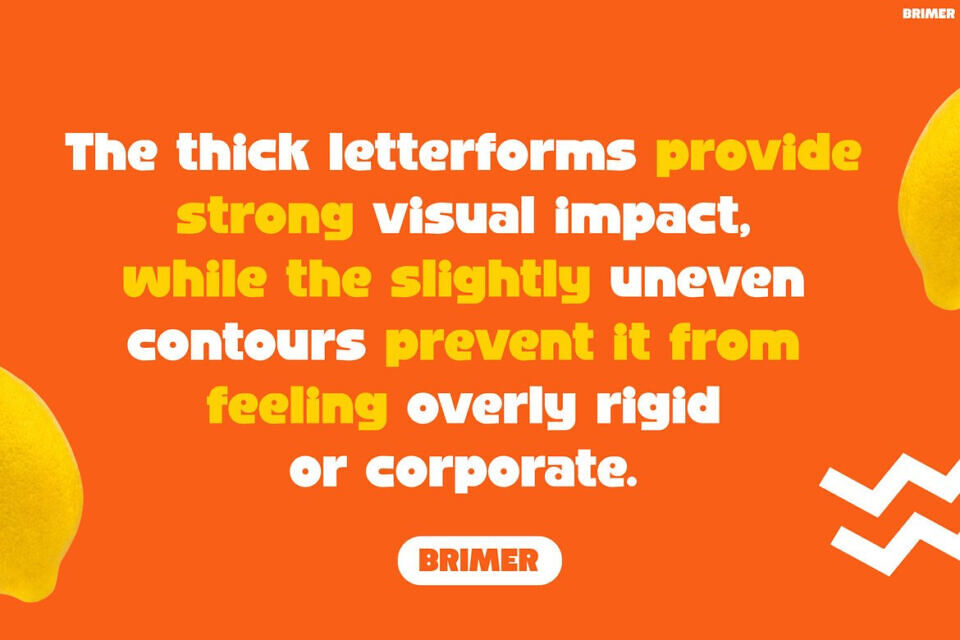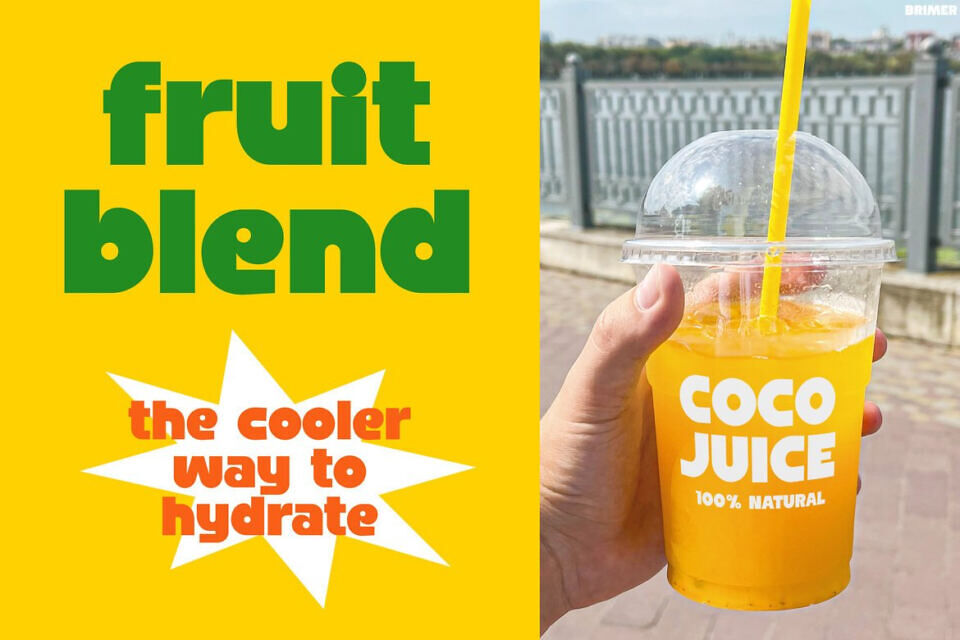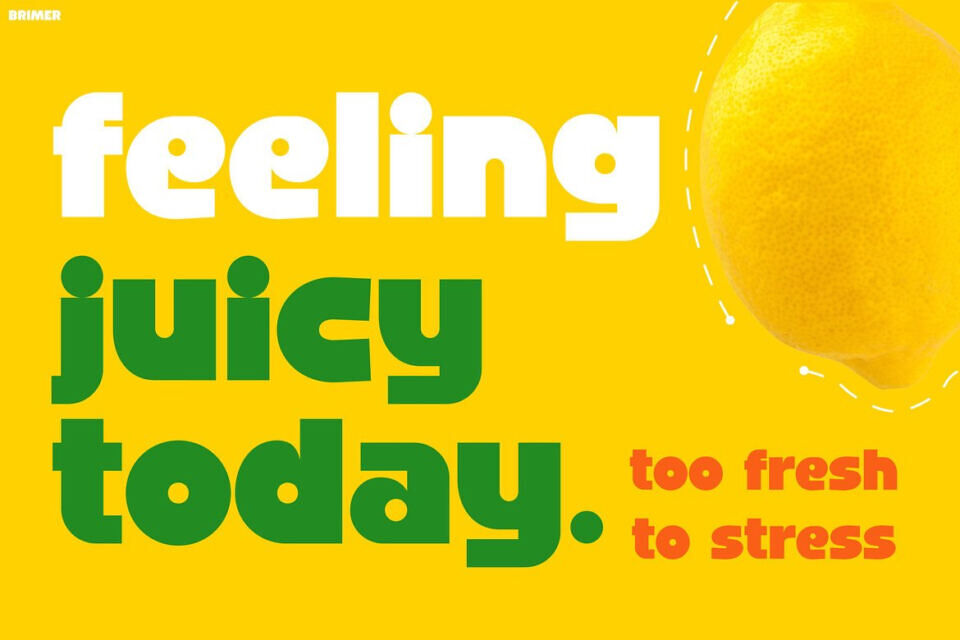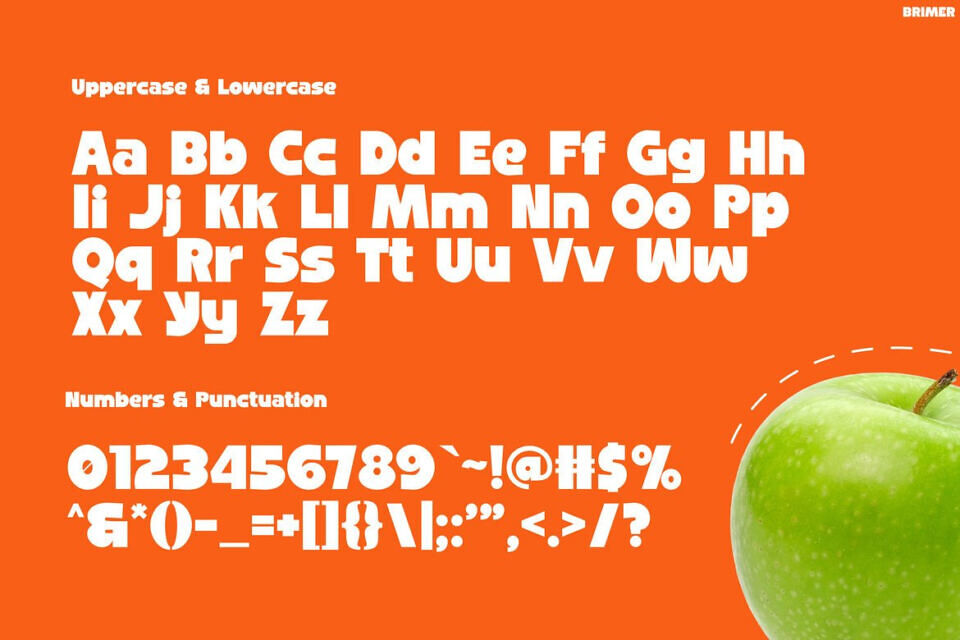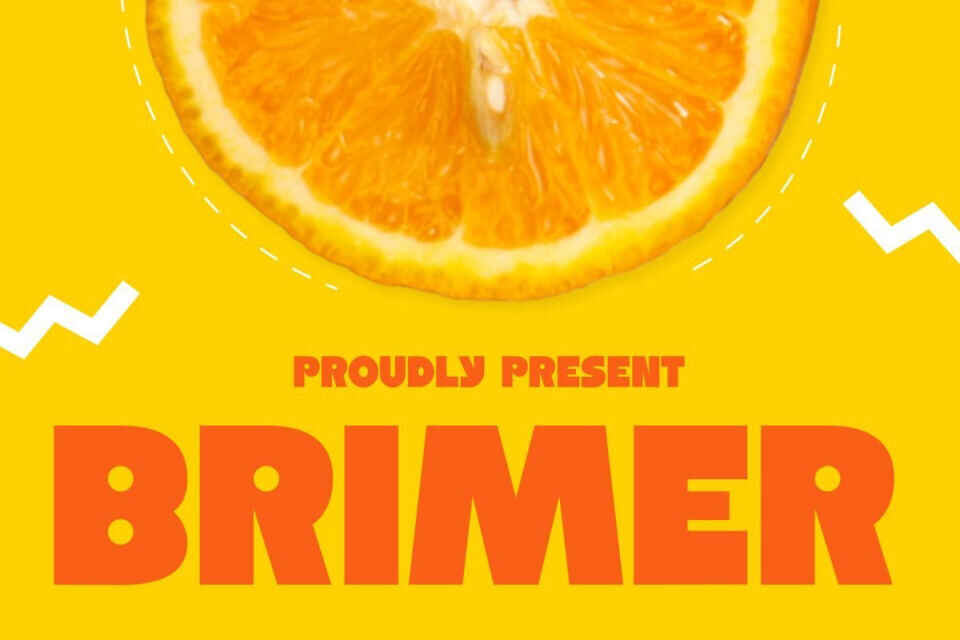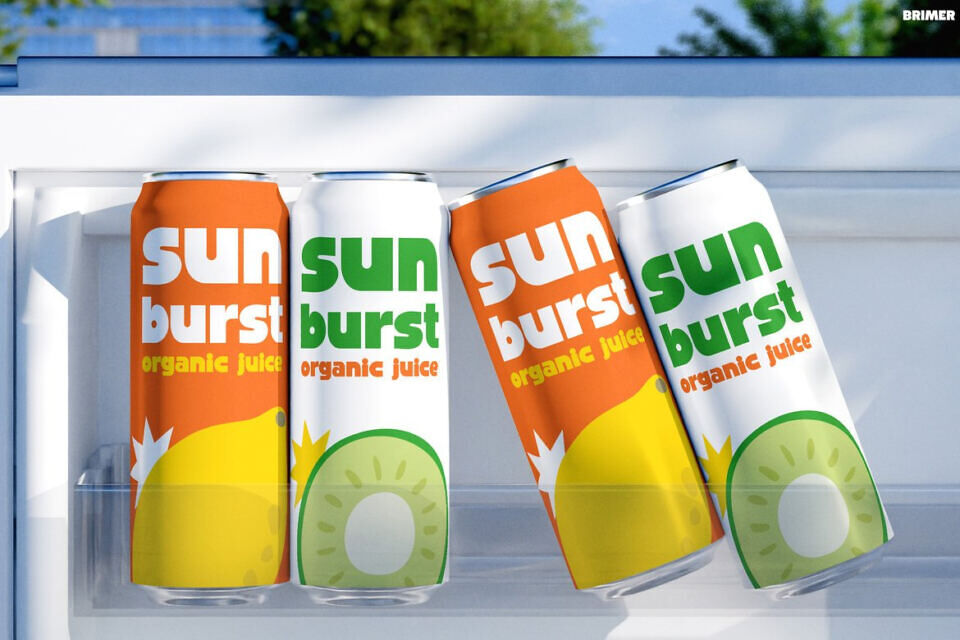
Brimer Font
BRIMER is a dynamic font that gives brands a modern and attention-grabbing look. Its thick, rounded letters and bold structure create a strong visual impact, while its playful yet clean style feels both approachable and professional.
This makes headlines more eye-catching and memorable. With balanced proportions and a chunky style, BRIMER is highly readable on social media, packaging, and promotional materials, making it perfect for building brands, launching products, or creating engaging content.